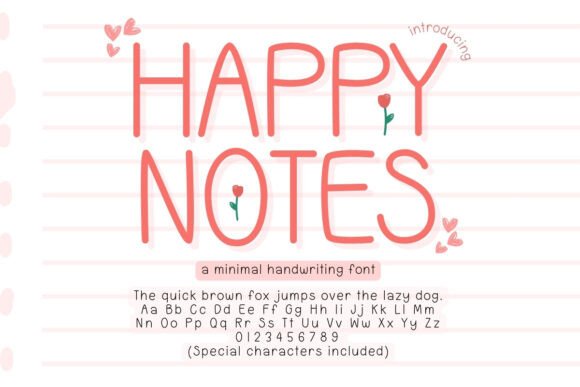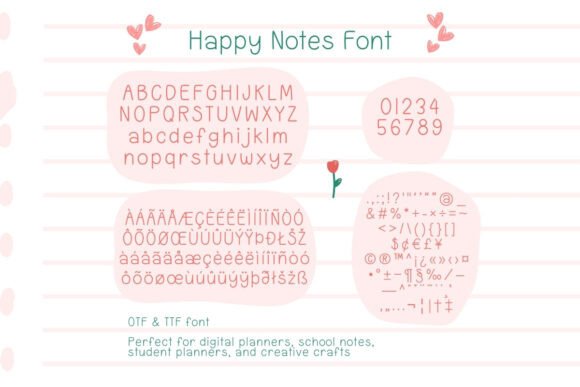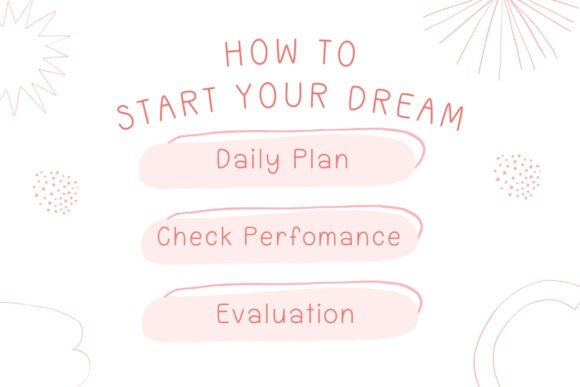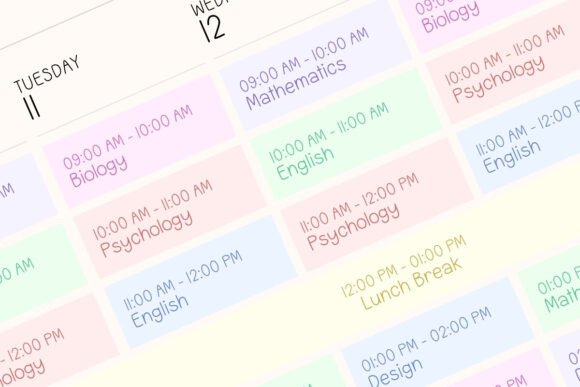
Happy Note Font: Cute Handwritten Sans Serif for Digital Planning & Crafts
About the Happy Note Font
Make a bold statement with Happy Note Font, a powerful and memorable font. Happy Note is designed in a cute and neat handwritten sans serif font style. This font adds a touch of joy and fun to your digital notes, digital planners, note-taking and creative projects!
Happy Note’s cheerful personality makes it ideal for projects requiring a friendly and approachable aesthetic. It works exceptionally well in headlines, short text blocks on social media, packaging for children’s products, or branding for businesses focused on creativity and playfulness. Avoid using it for large bodies of text or UI elements where readability is paramount; its informal style may hinder comprehension in extended use.
Pair Happy Note with a clean sans-serif like Open Sans for a balanced contrast, or a more playful script font like Pacifico for added whimsy. For a sophisticated yet approachable look, consider pairing it with a subtle serif typeface like Lora.
Happy Note’s overall personality is undeniably playful and approachable, yet retains a level of neatness and legibility that prevents it from becoming overwhelming. This makes it versatile for projects aiming for a fun, yet professional feel.
Happy Note Font Usage Examples
Happy Note Font Example